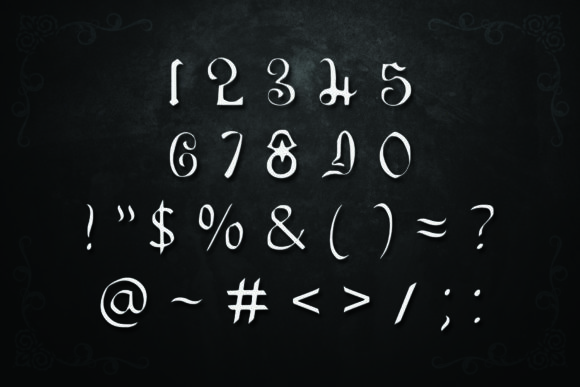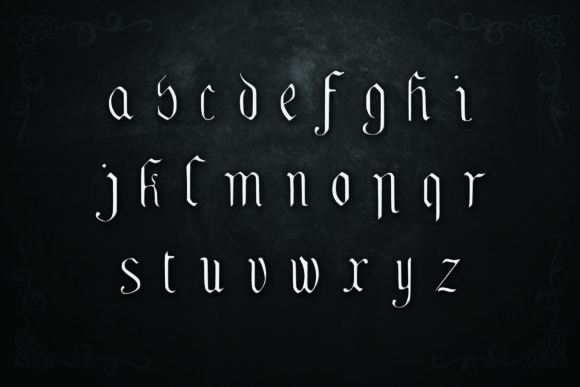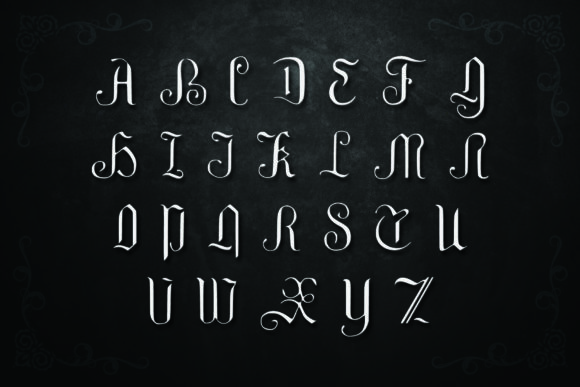
Discover the Timeless Charm of Griffin Font: Elevate Your Design Projects with an Authentic 16th-Century Typeface
In the realm of typography, certain fonts stand out for their unique character and timeless appeal. Among these, the Griffin Font has garnered attention for its distinctive 16th-century flair, making it an excellent choice for designers and crafters looking to infuse their projects with a touch of authenticity and elegance. In this article, we’ll delve into the world of Griffin Font, exploring its origins, characteristics, and the myriad ways it can elevate your design projects.
The Origins and Characteristics of Griffin Font
Griffin Font is a typeface that harks back to the 16th century, a period renowned for its significant contributions to art, literature, and design. This historical font is characterized by its classic features, including elegant lines, intricate details, and a robust yet refined appearance. The Griffin Font’s design is inspired by the typographic standards of the Renaissance era, offering a vintage look that is both sophisticated and captivating.
One of the defining features of Griffin Font is its versatility. It comes in various weights and styles, making it suitable for a wide range of applications, from headings and titles to body text. This adaptability, combined with its distinctive aesthetic, makes Griffin Font an excellent choice for designers seeking to create visually compelling and coherent designs.
Why Choose Griffin Font for Your Design Projects?
Choosing Griffin Font for your design projects can significantly enhance their visual appeal and impact. Here are several reasons why Griffin Font stands out as a premier choice:
- Authentic Vintage Appeal: Griffin Font offers an authentic 16th-century vibe that can add depth and character to any design project. Its classic look is perfect for projects that require a historical or traditional feel, such as wedding invitations, certificates, and vintage-themed marketing materials.
- Versatility: With its range of weights and styles, Griffin Font can be used across various design applications, including branding, packaging, digital media, and print materials. This versatility makes it a valuable addition to any designer’s font library.
- Legibility: Despite its ornate appearance, Griffin Font maintains a high level of legibility, making it suitable for both headings and longer texts. This ensures that your designs are not only visually appealing but also easy to read.
- Uniqueness: In a world where modern and minimalist designs are prevalent, Griffin Font offers a refreshing alternative. Its unique and distinctive style can help your projects stand out in a crowded marketplace, capturing the attention of your audience.
Applications of Griffin Font
The applications of Griffin Font are vast and varied, limited only by your imagination. Here are some popular uses:
- Branding and Logo Design: Use Griffin Font to create a memorable and impactful logo that reflects your brand’s personality and values.
- Stationery and Print Materials: Elevate your business cards, letterheads, and brochures with the elegant and sophisticated look of Griffin Font.
- Digital Media: Incorporate Griffin Font into your website design, social media graphics, and email newsletters to add a touch of class and authenticity.
- Crafting and DIY Projects: Whether you’re creating handmade cards, crafting personalized gifts, or working on other DIY projects, Griffin Font can add a professional and polished finish.
| Font Name | Griffin Font |
| Author | denestudios |
Griffin Font is more than just a typeface; it’s a gateway to a world of timeless elegance and authenticity. With its roots in 16th-century typography, this font offers designers and crafters a unique opportunity to infuse their projects with a classic charm that stands out in today’s design landscape. Whether you’re working on a branding project, crafting vintage-inspired marketing materials, or simply looking to add a touch of sophistication to your designs, Griffin Font is an excellent choice. Embrace the beauty of Griffin Font and watch your design projects transform into standout creations that captivate and inspire.